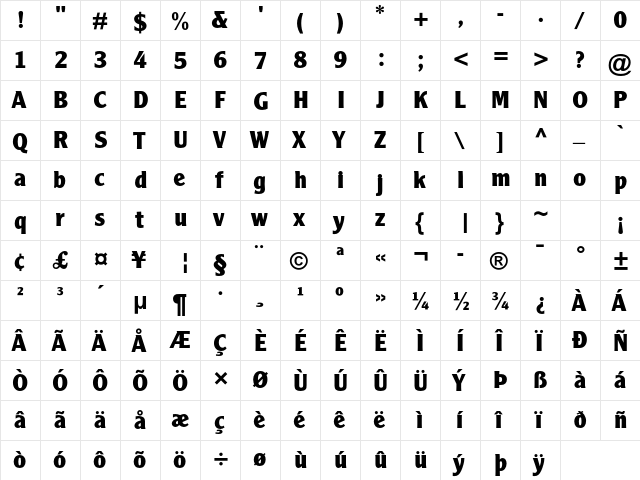
Clearface Gothic MT Std Bold
Design Context for Clearface Gothic MT Std Typeface
Clearface Gothic MT Std has the quiet confidence of well-executed sans-serif typography: versatile, unobtrusive, and dependable at any size. Its bold stroke weight gives it real presence on the page.
A strong choice for UI design, app interfaces, bold signage, and corporate brand systems.
Font Pairing: Use Clearface Gothic MT Std for headlines alongside a lighter-weight sans or serif for body copy to establish clear visual hierarchy.
Pro Tip: Pair Clearface Gothic MT Std with a display or serif font for headlines — its neutral character makes it an excellent supporting player in complex typographic systems.